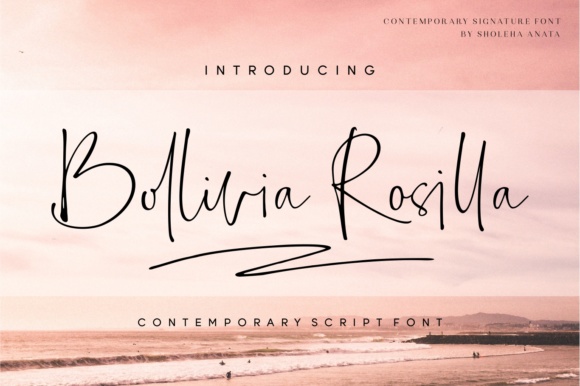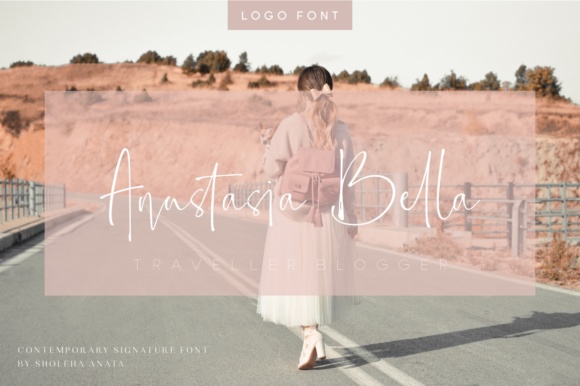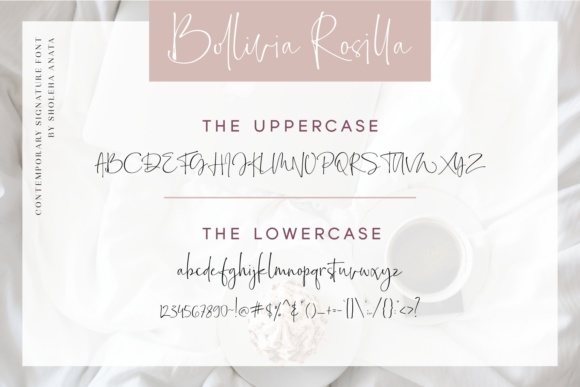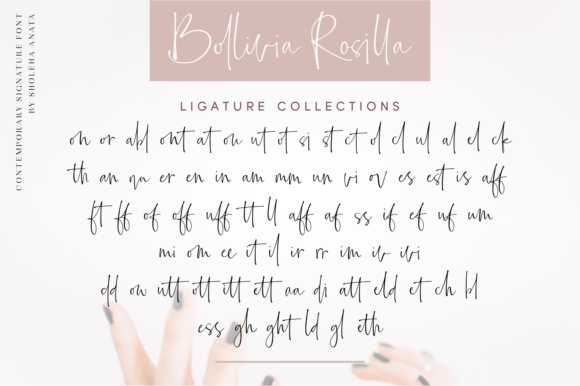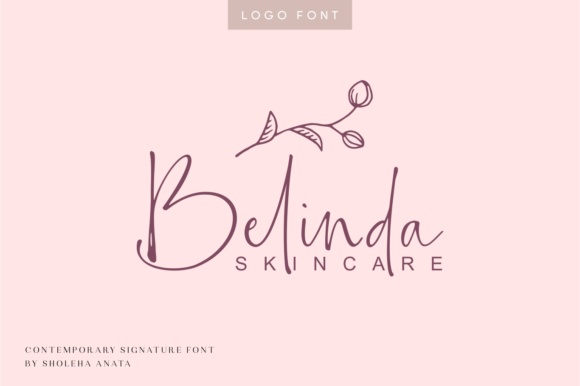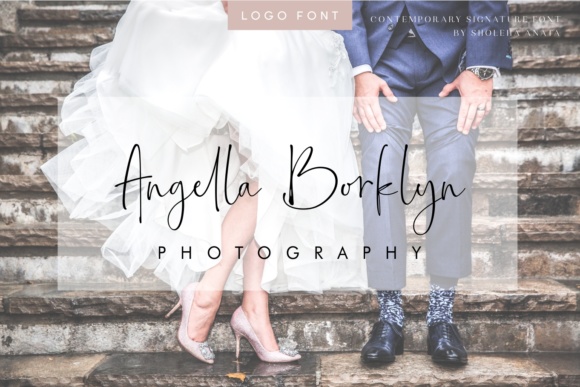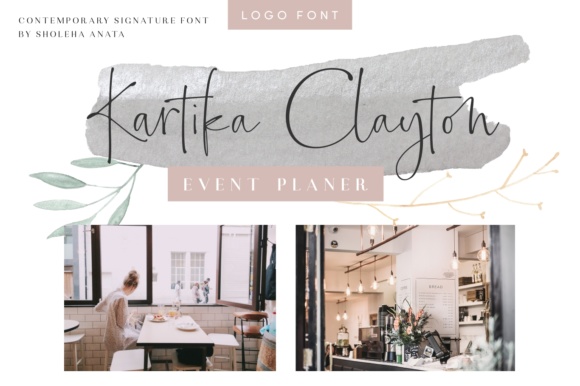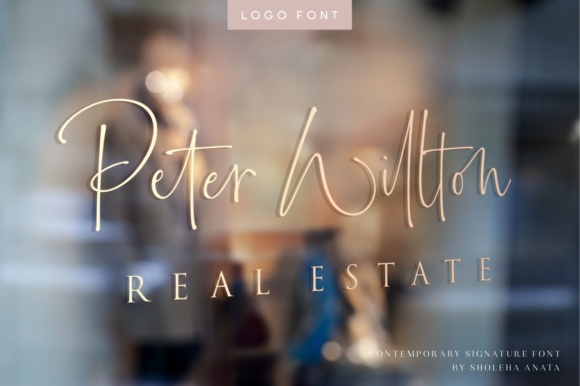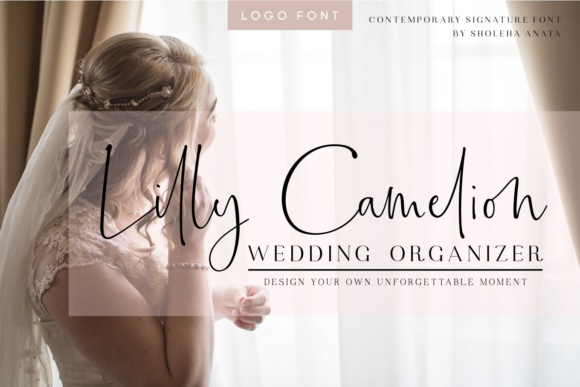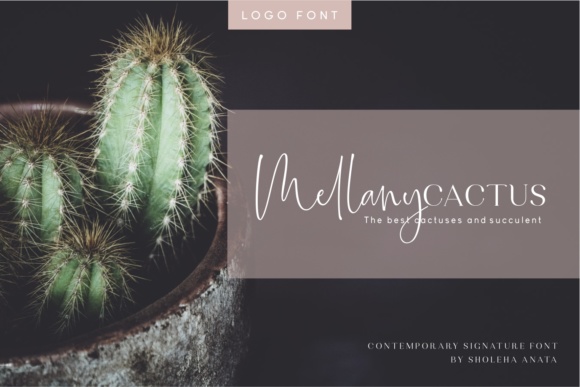
Bollivia Rosilla Font
About Bollivia Rosilla Font
Bollivia Rosilla is a contemporary script font with an elegant style. Bollivia Rosillia suits well for feminine, sexy and elegant designs.